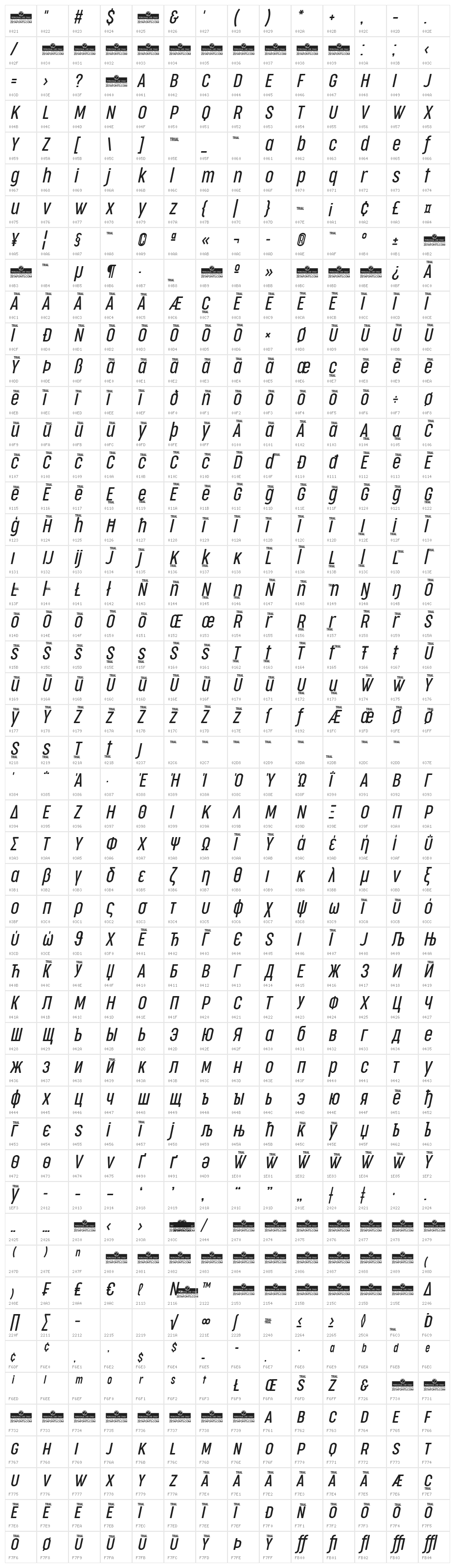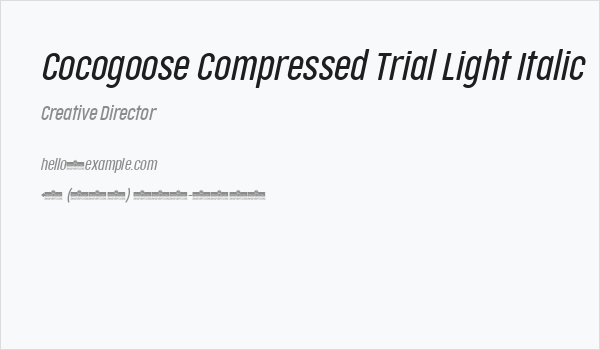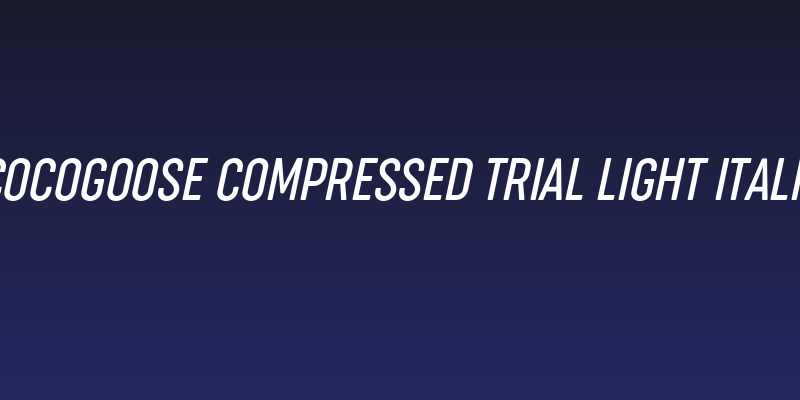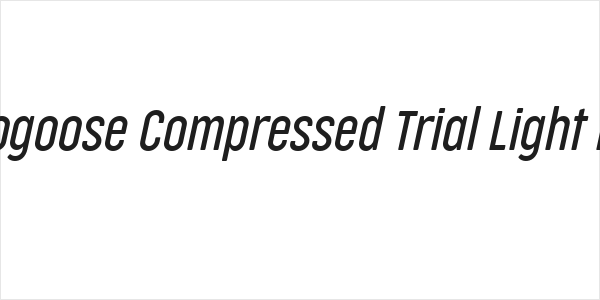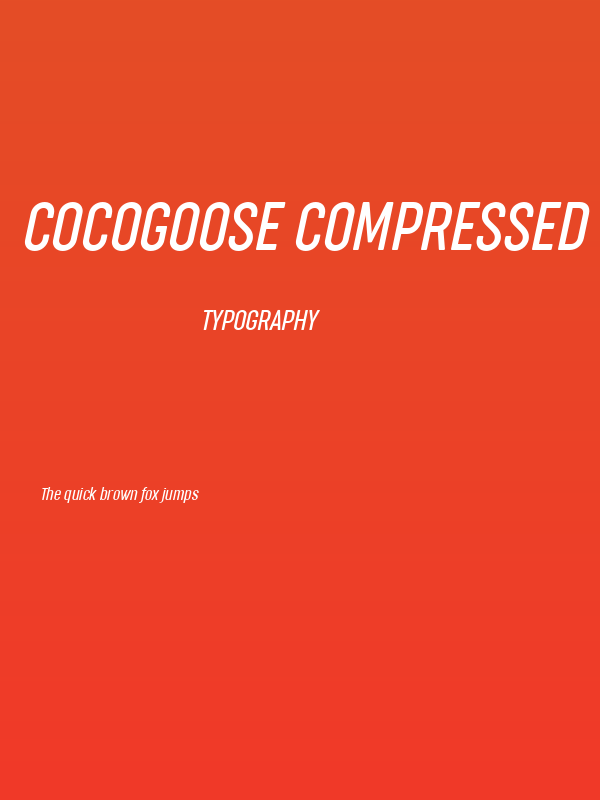
Cocogoose Compressed Trial Light Italic Font
Cocogoose Compressed Trial Light Italic Description
This font features a sleek and modern design with a compressed and light structure. The italic style adds a dynamic and forward-leaning appearance, making it suitable for contemporary and stylish applications. The characters are elongated and slightly slanted, providing a sense of motion and elegance. The font maintains a consistent stroke width, contributing to its clean and streamlined look. It includes a full set of uppercase and lowercase letters, numbers, and a variety of special characters, ensuring versatility for various design needs.
| Use Case | Headlines, Logos, Editorial design |
| Proposed Projects | Ideal for modern branding, editorial design, fashion magazines, and digital interfaces. |